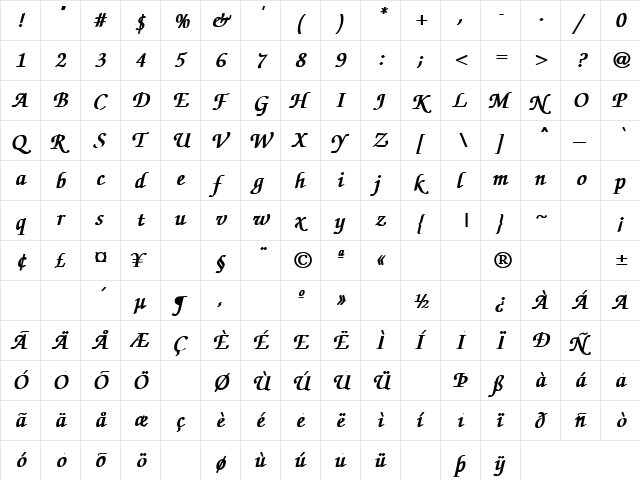
Realization 4 Bold
Design Context for Realization 4 Typeface
Realization 4 is a composed and adaptable typeface that performs quietly and consistently across a wide range of design contexts. The heavy weight commands attention and anchors typographic hierarchies.